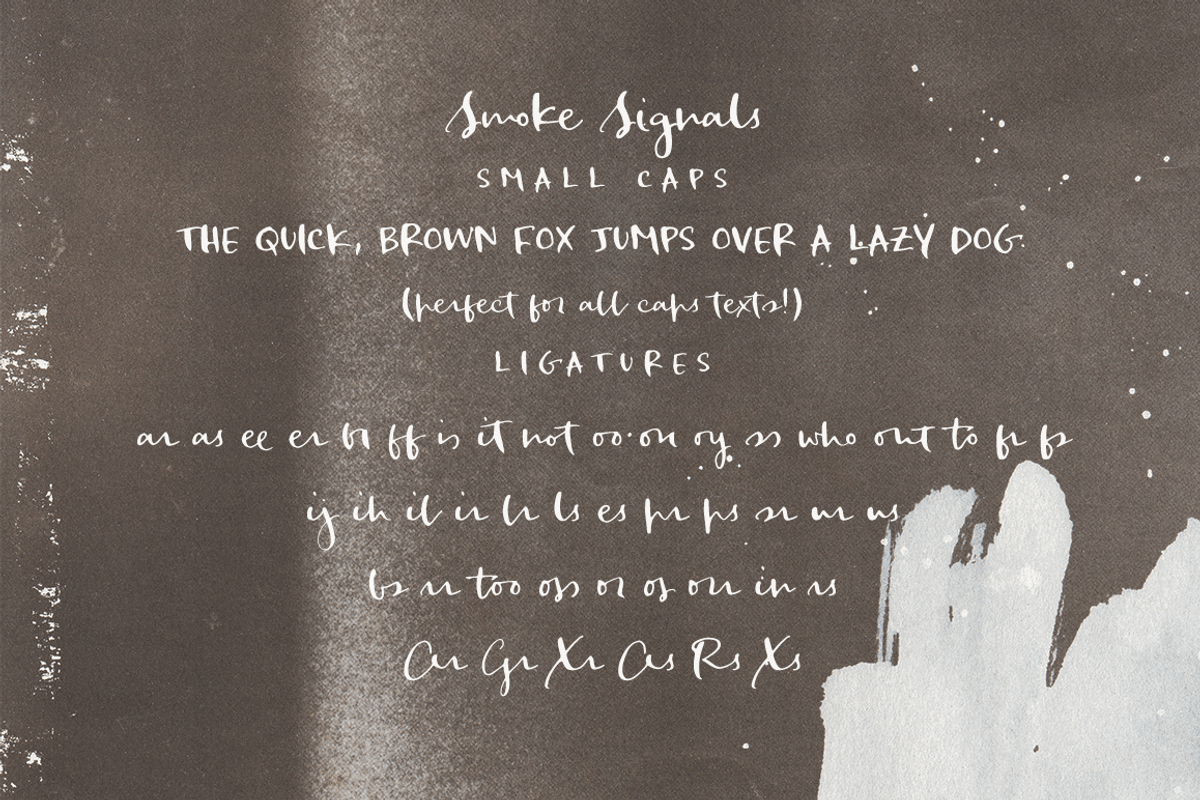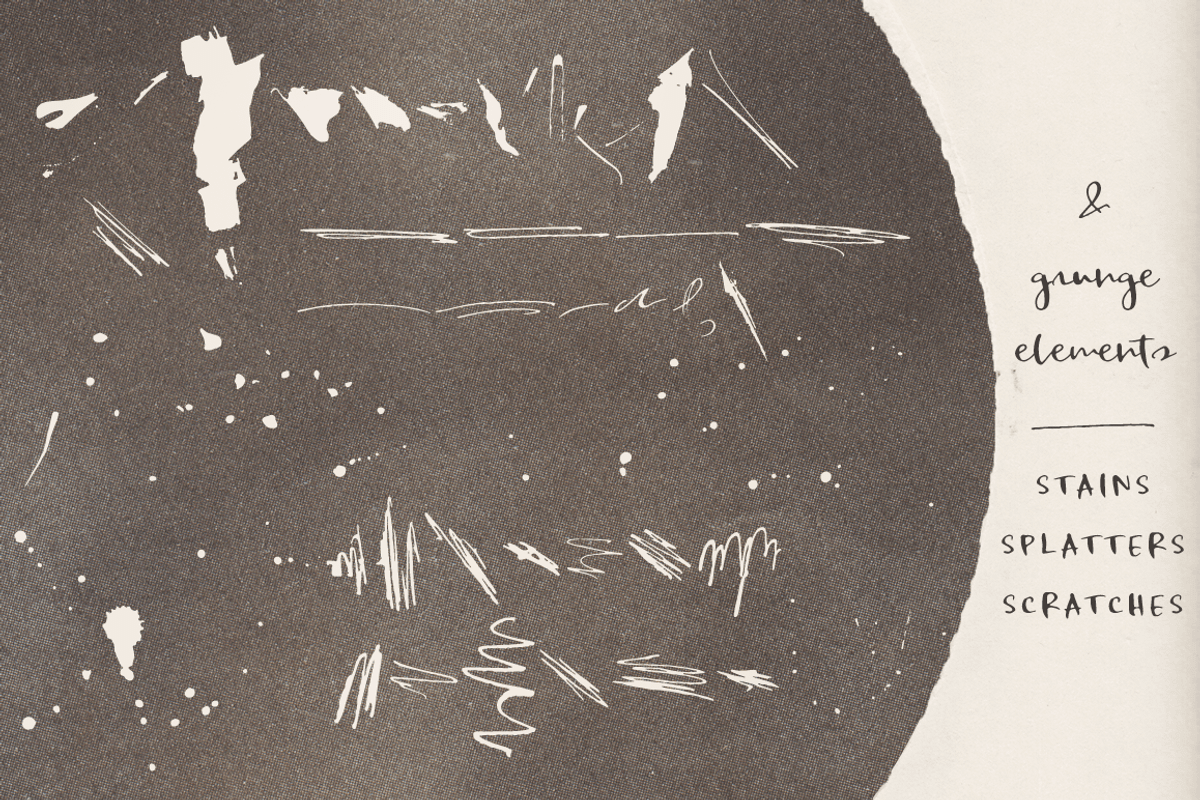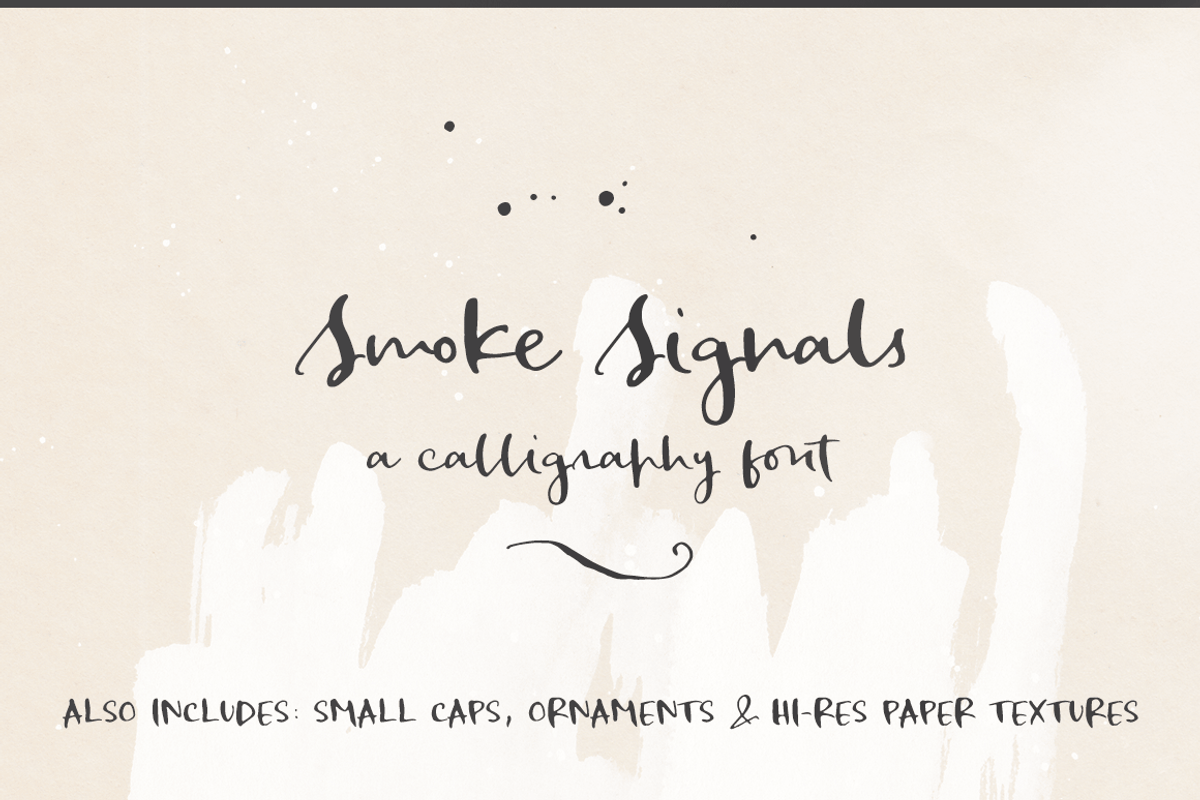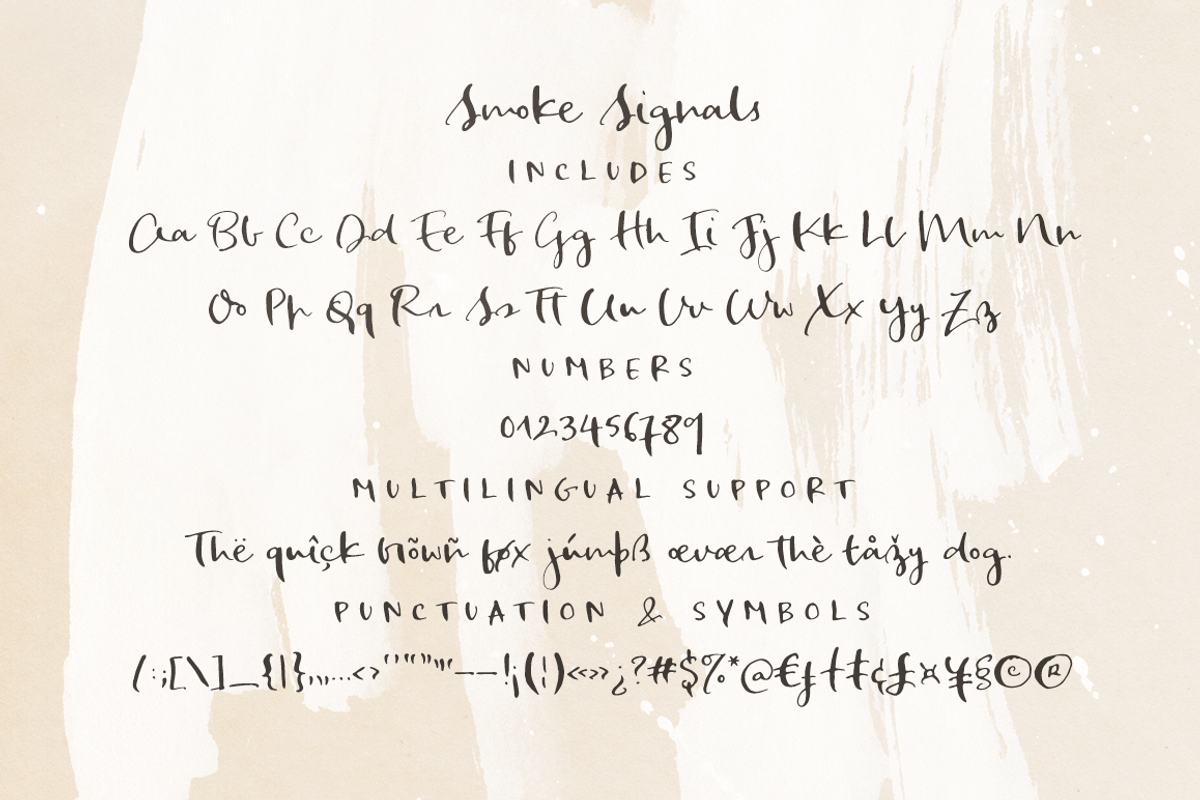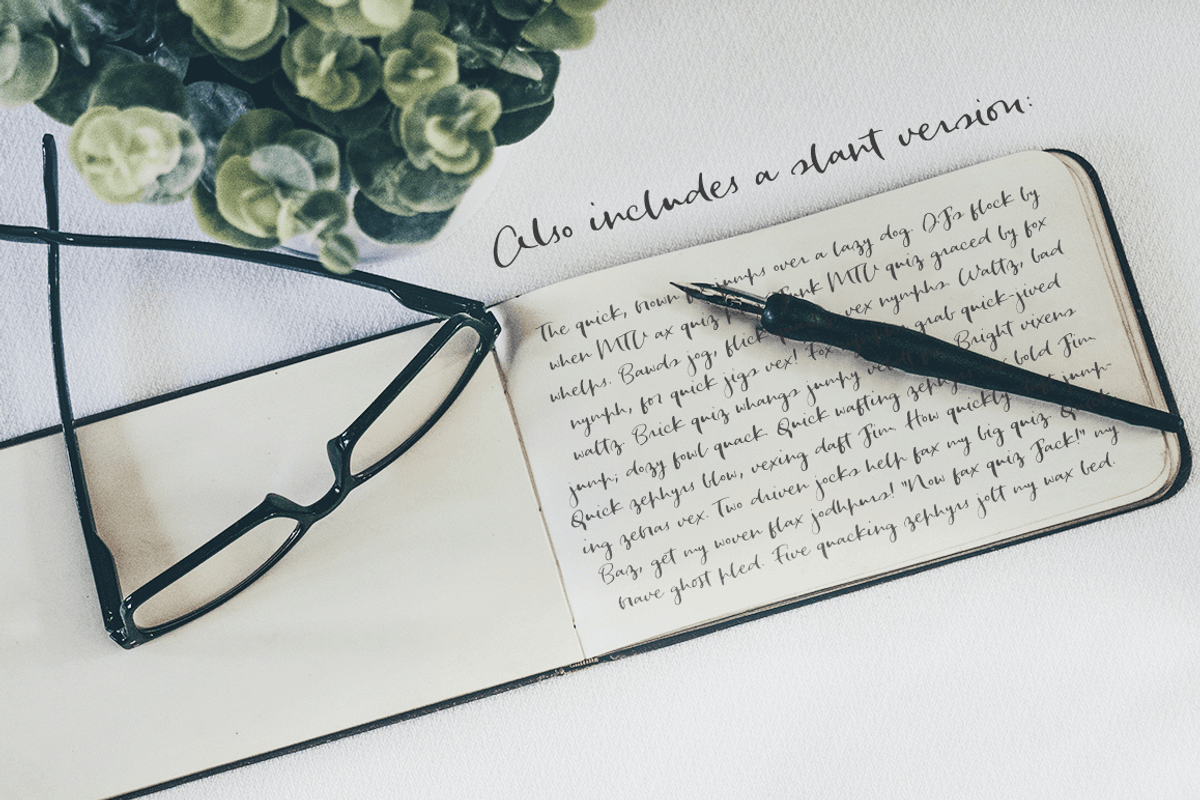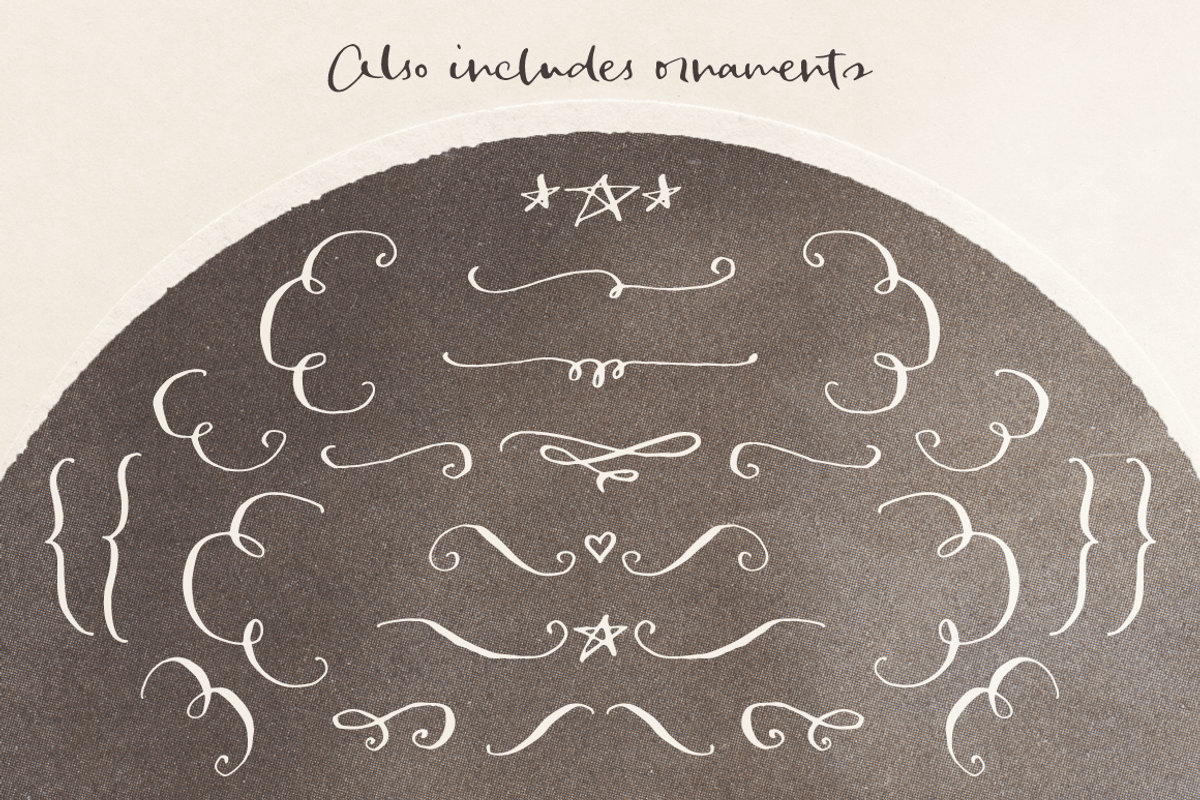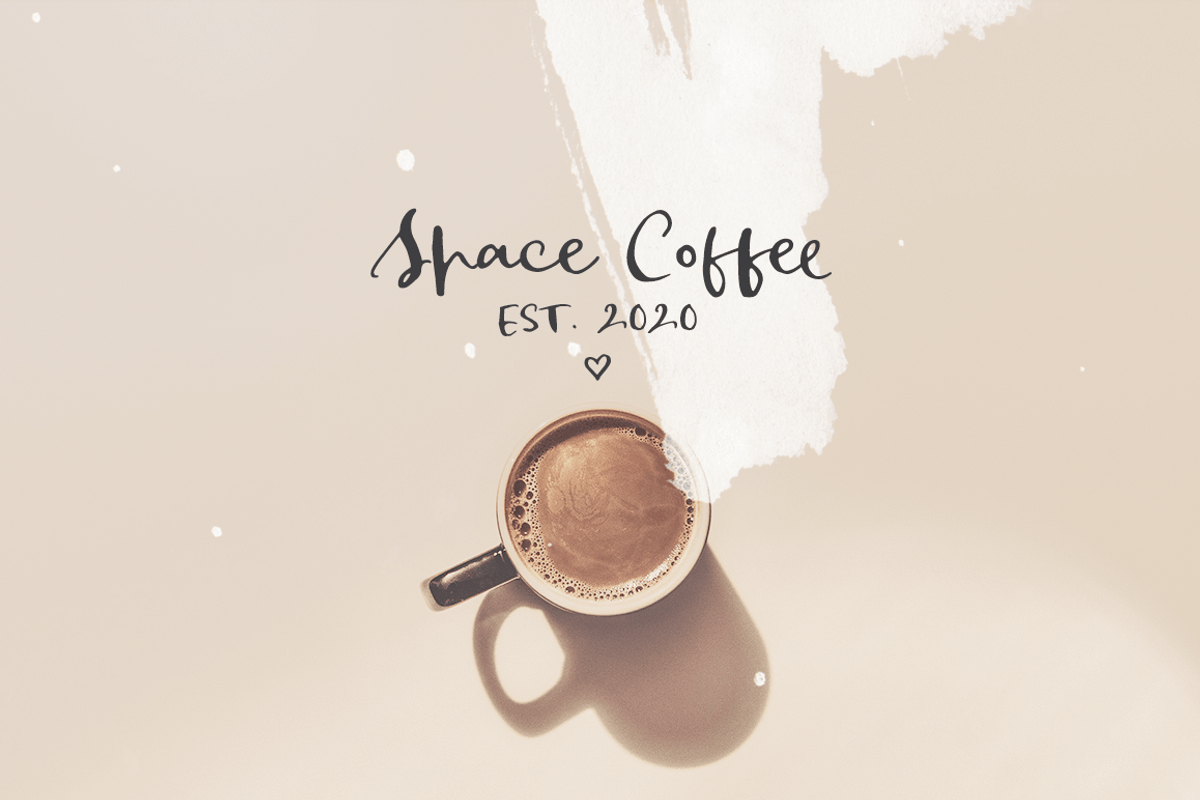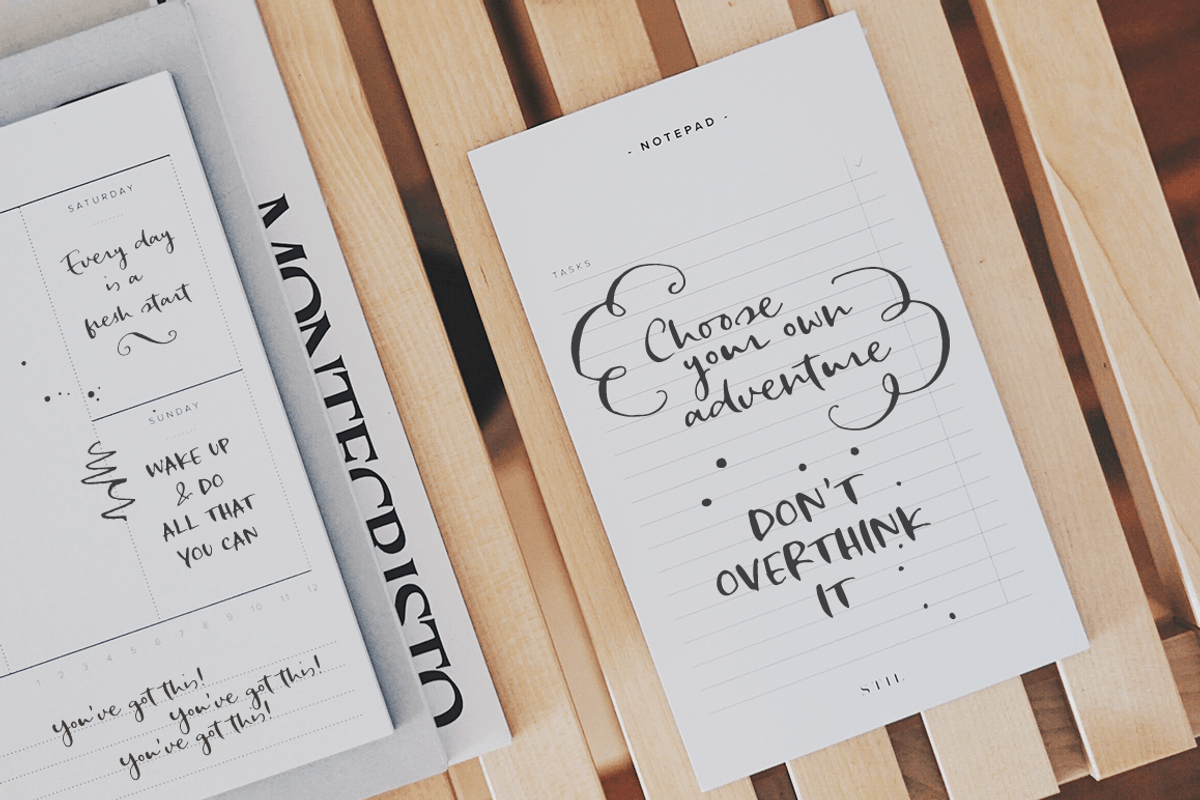
Smoke Signals script font and extras
Smoke Signals is a calligraphy font handmade using a real dip pen and ink with lots of bonus goodies.
Smoke Signals includes:
tons of ligatures for a smoother text
small caps that act as an all caps font
a bonus set of ornaments
a bonus set of grunge elements, such as splatters, ink blots, scratches
a bonus set of 10 paper textures scanned from old record sleeves and old notebooks
Smoke Signals is perfect for any design that needs a vintage calligraphy look. Use it in signatures and logos, notes and quotes, social media posts, and branding and packaging.